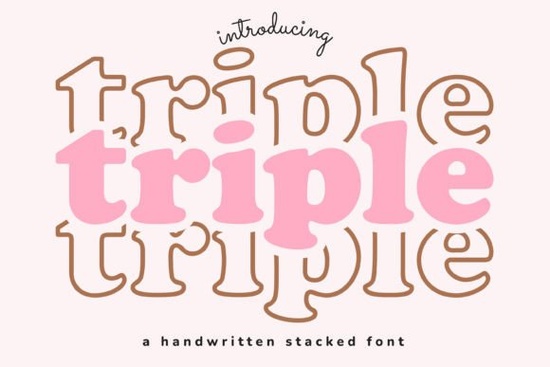
If you’re looking for a display font that adds personality without overwhelming your design, Triple Font is worth a closer look. It’s the kind of typeface that works just as well on a hand-painted tote bag as it does on a digital shop banner or a birthday invitation. The letterforms have charm and rhythm not too stiff, not too wild making it easy to pair with other elements in your project.
Whether you're running a small Etsy shop, crafting custom gifts, or designing social media graphics for your local business, Triple gives your work that little extra something. You don’t need advanced design skills to make it shine just drop it into your favorite editor and start playing around. If you’ve ever used fonts like College Block or Cute Stories, you’ll find Triple fits right in with that same friendly-but-bold energy.
What kinds of projects does this font actually work for?
Here’s where Triple really earns its keep:
- Print-on-demand items Think mugs, t-shirts, and stickers. The weight and spacing hold up well at different sizes.
- Event signage Birthday parties, baby showers, craft fairs. It’s playful enough to feel festive but clean enough to stay readable.
- Digital thumbnails or ads Especially if you’re trying to stand out without looking “shouty.”
- Handmade packaging Soap labels, candle wraps, bakery tags. It adds warmth without looking sloppy.
It’s not the kind of font you’d use for body text in a brochure and that’s okay. Display fonts like this are meant to be accents, headlines, or focal points. If you’re pairing it with something simpler (like a basic sans-serif), you’ll get the best results. For similar vibes, check out Preppy Varsity another solid pick for casual, upbeat designs.
How does it compare to other display fonts on Creative Fabrica?
Fonts like Soccer Jersey or Sunspell each have their own niche. Soccer Jersey leans sporty and bold, while Sunspell has that breezy, handwritten feel. Triple sits somewhere in between structured enough to feel intentional, but loose enough to feel human. That balance makes it surprisingly versatile.
Any tips for getting the most out of Triple Font?
A few practical things that help:
- Try uppercase first. The caps often have more character and better spacing in display fonts like this.
- Add subtle shadows or outlines if you’re placing text over busy backgrounds. A thin white stroke can make it pop without changing the font’s vibe.
- Don’t overcrowd it. Give the letters room to breathe especially in logos or banners.
- Pair it with a neutral sans-serif. Something like Montserrat or Lato keeps things balanced.
If you’re still exploring options, take a peek at Sunspell for something more flowing, or Preppy Varsity if you want that retro-sporty punch. But if you’re after a font that’s fun without being fussy, Triple might be your new go-to.
Where should I start if I’m new to using display fonts?
Start small. Pick one project maybe a printable quote, a product label, or an Instagram story template and try Triple there. See how it feels. Adjust the tracking (letter spacing) if things look too tight. Play with color. Maybe add a simple shape behind the text to frame it. You don’t need fancy software; Canva, Silhouette Studio, or even PowerPoint will do fine.
And remember: fonts like this aren’t about perfection. They’re about personality. If it makes your design feel more you, you’re already doing it right.